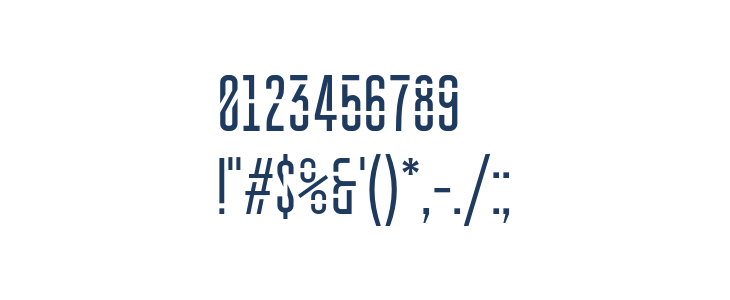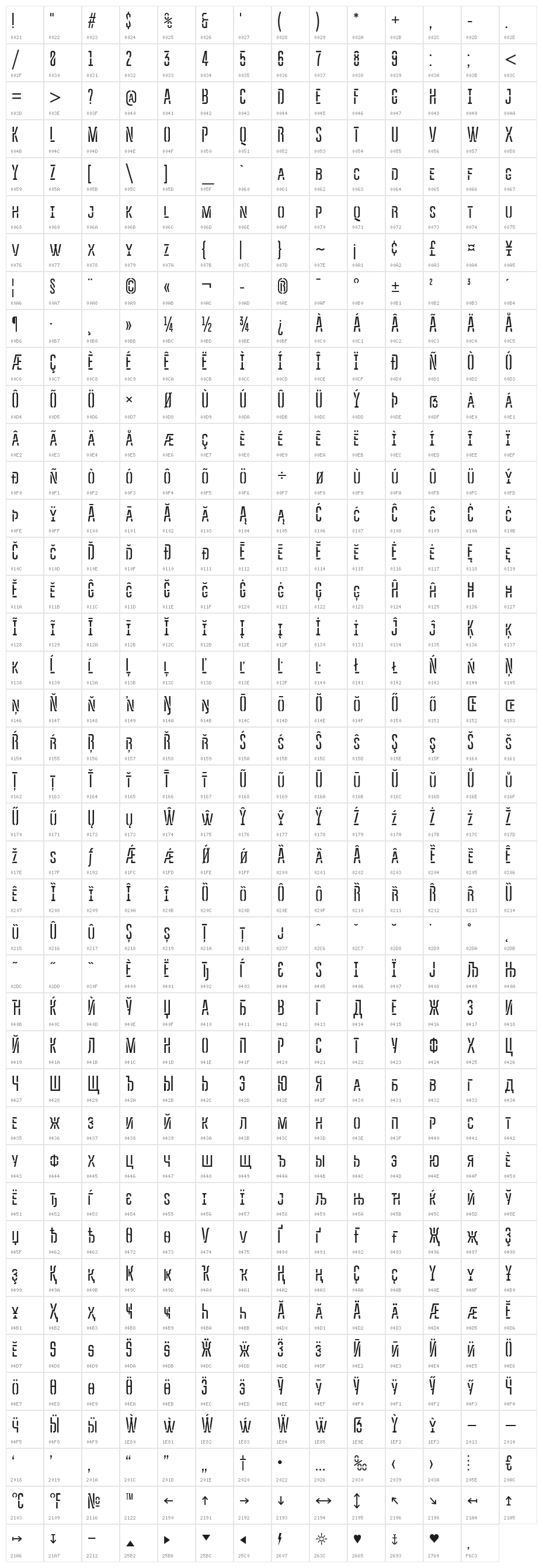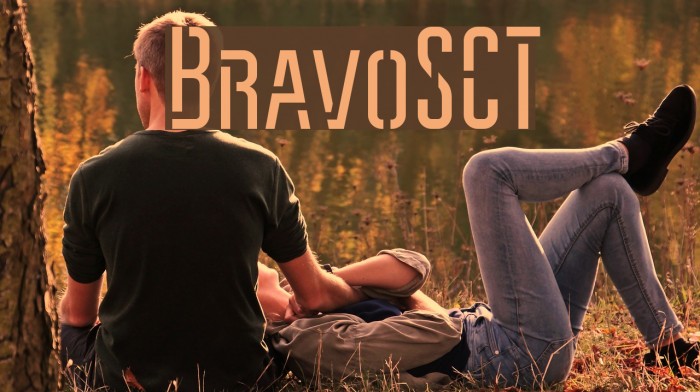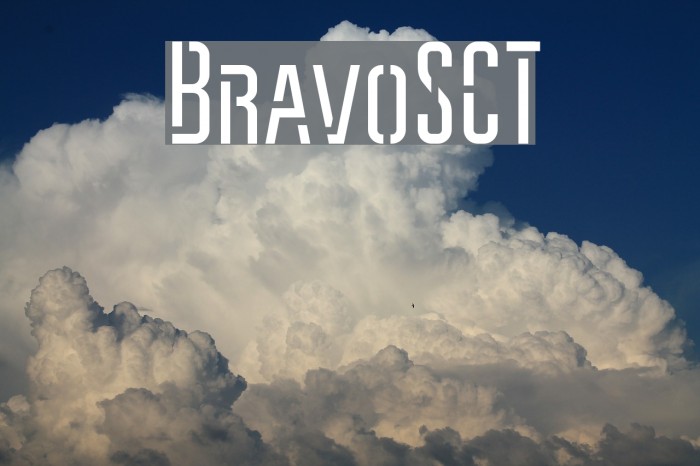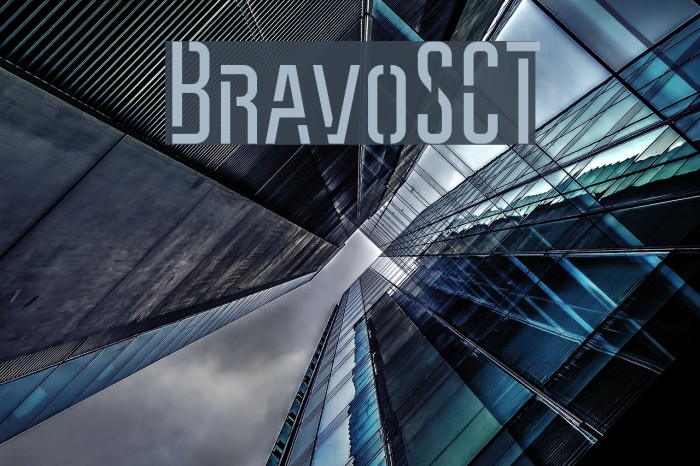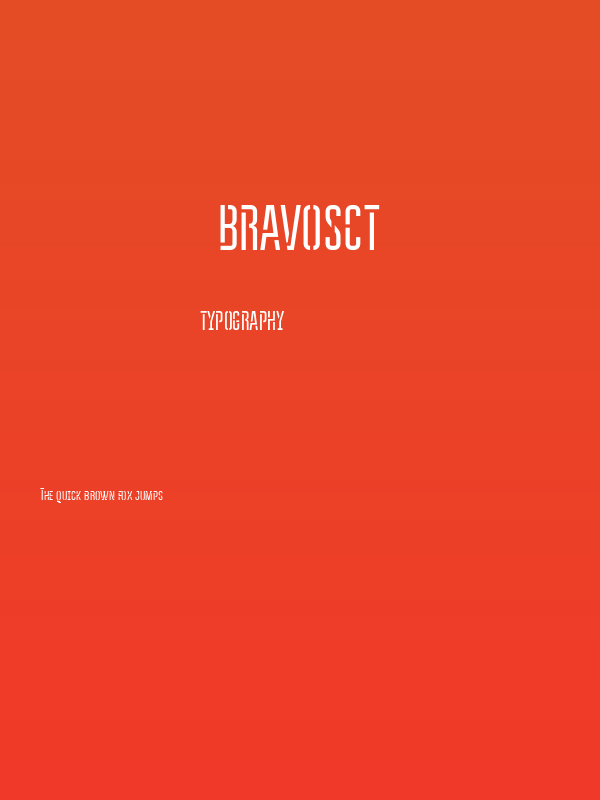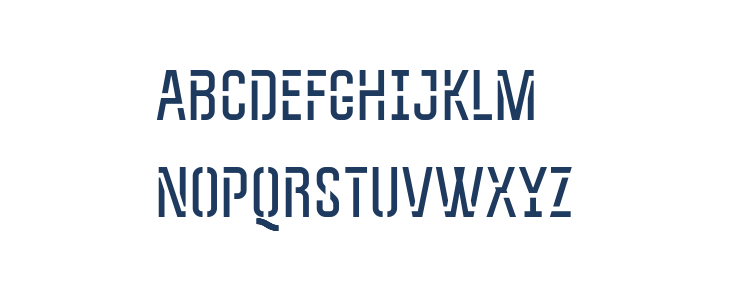
BravoSCT Font
BravoSCT Description
This font features a bold and striking design with a modern, industrial feel. The characters are tall and narrow, with a distinct geometric structure that gives them a strong presence. The uppercase letters are particularly eye-catching, with sharp angles and clean lines that convey a sense of precision and strength. The numbers and special characters maintain this aesthetic, ensuring consistency across all elements. The font's unique style makes it suitable for projects that require a bold statement, such as branding, advertising, or editorial design.